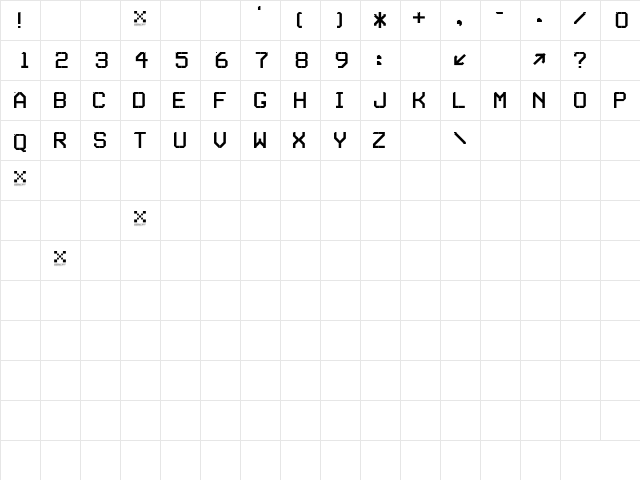
SERIESC Regular
Design Context for SERIESC Typeface
SERIESC is a composed and adaptable typeface that performs quietly and consistently across a wide range of design contexts.